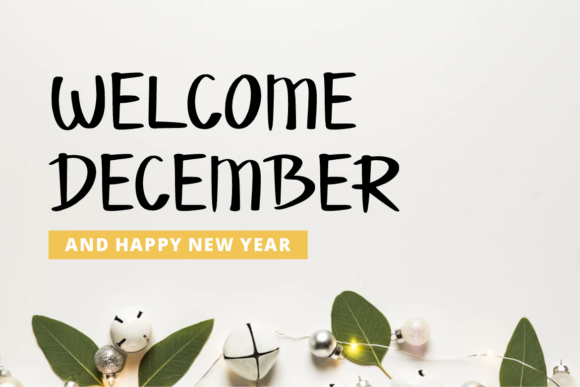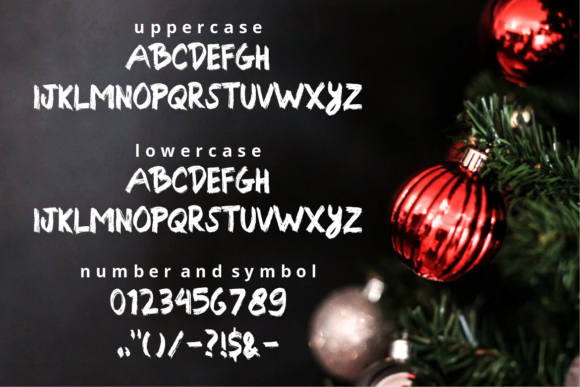
Introduction to Christmas Summer Font
Christmas Summer is organic handwritten font.
This font will make your designs look natural, authentic, and amazing Christmas Summer is suitable for logotype design, typography, branding, advertising, clothing, and many more.
Key Features of Christmas Summer Font